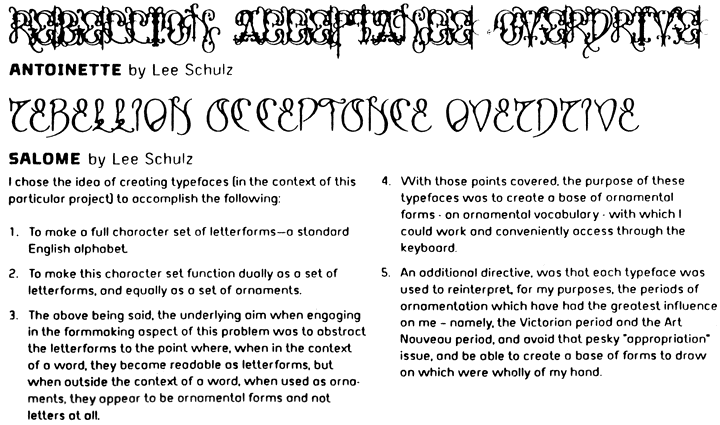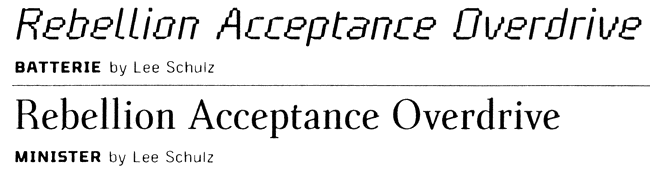
I *think* I know, but I'd rather not say... :-/ Don't worry, it's not a bad thing - just potentially "expensive" information, at least until a few months from now.
Ole, you know too much - now I kave to kill you. ;->
It's Alfa Sans, by Gehlhaar, yes. And it's very nice. And it was used on the cover of the winner of the international "Most Beautiful Book" competition of 2000.
I believe my samples are scanned from Alphabook. Got them from someone else. Your question is very valid... I've thought of tracking down Gelhaar's email address for some time now so I could write and ask him why he hasn't offered these beauties up for sale.
ITC Officina Serif Black OS comes close but not a perfect match.
I *think* I know, but I'd rather not say... :-/ Don't worry, it's not a bad thing - just potentially "expensive" information, at least until a few months from now.
Hrant I do not quite get what you mean. If you do not wish to share this information in the forum send me the info privately. Ole
Not sure what Hrant's going on about...
But I like a challenge - maybe too much.
I've spent far too long staring at this thing
wondering where I've seen it before.
It looks simutaneously like the work of
Tankard, Schwartz, Bilak and Spiekermann.
I think I saw it used in a design by Jens Gehlhaar. It did however not look like his work, so the question remains, what is it, and who made it?
Don't like Gelhaar, Ole? Not even this?
Oops. I misread you. Enjoy the pic anyway.
I actually consider Gehlhaar one of the best type designers around. I would guess you have seen his thesis project- the CIA comdendium of alphabets.
Ole, you know too much - now I kave to kill you. ;->
It's Alfa Sans, by Gehlhaar, yes. And it's very nice. And it was used on the cover of the winner of the international "Most Beautiful Book" competition of 2000.
Gehlhaar and Schulz are the two good type designers to come out of CalArts. Or maybe they were already good when they went in...
OH MY GOD! I want PP Deluxe... What a beauty!
Where do I buy?
Richard, as far as I know it is not for sale. It was one in a set of 4. All were very different and named after philosophers.
Ole - I'd be interested in seeing Gehlhaar's CIA compendium if you have a chance to post it sometime. Or is there a link?
Two faces from Lee Schulz are in Alphabook but I was wondering if anybody had a link to anything else by him or could post something?
Hrant, in your review of Cal Arts's type design class, you mentioned some other faces by Schulz.
Where did you see those?
> Where did you see those?
At that exhibition they had in October, and the booklet they gave out with it.
A post or an email would be greatly appreciated.
The whole booklet?! :-/
Nah. How about the Lee Schulz faces you refer to in your CalArts review?
Hey bj. More Gelhaar:
thx scoles. looking at these, i'm a vexed slackdog. are they for sale somewhere?
A couple of 150 dpi scans from the booklet:
Salome (one of my "top-10" fonts) and Antoinette, both from '98:
From Schulz's post-CalArts oeuvre:
I believe my samples are scanned from Alphabook.
Got them from someone else. Your question is very
valid... I've thought of tracking down Gelhaar's
email address for some time now so I could write
and ask him why he hasn't offered these beauties
up for sale.
Hey, shshsheck out Lee Schulz's site: